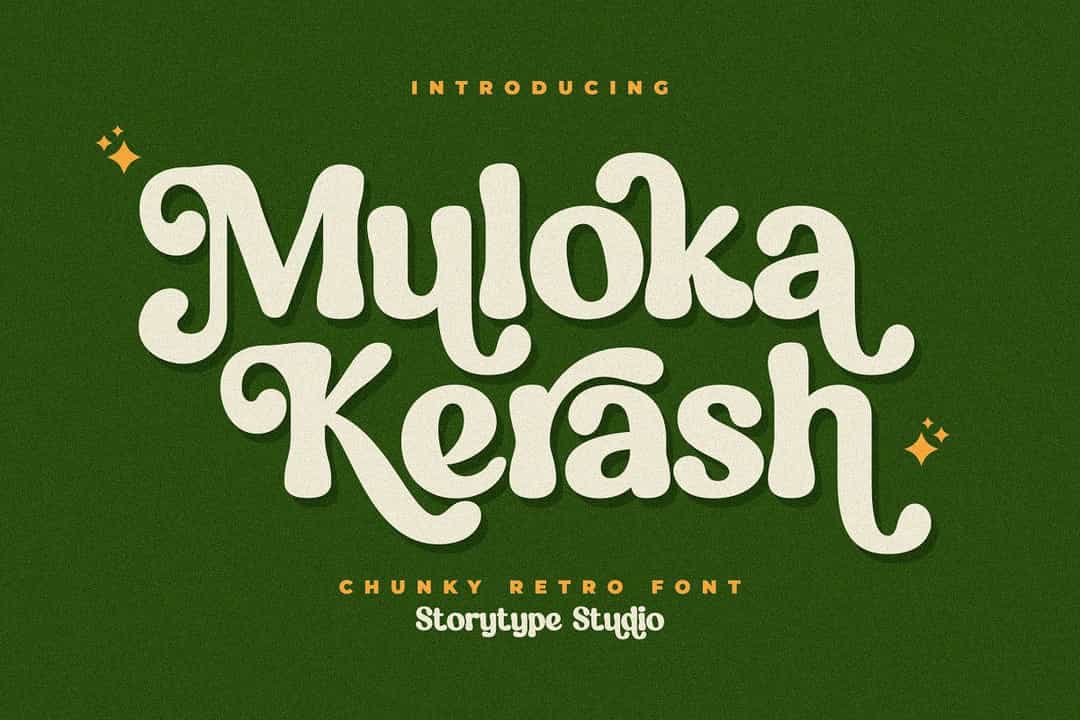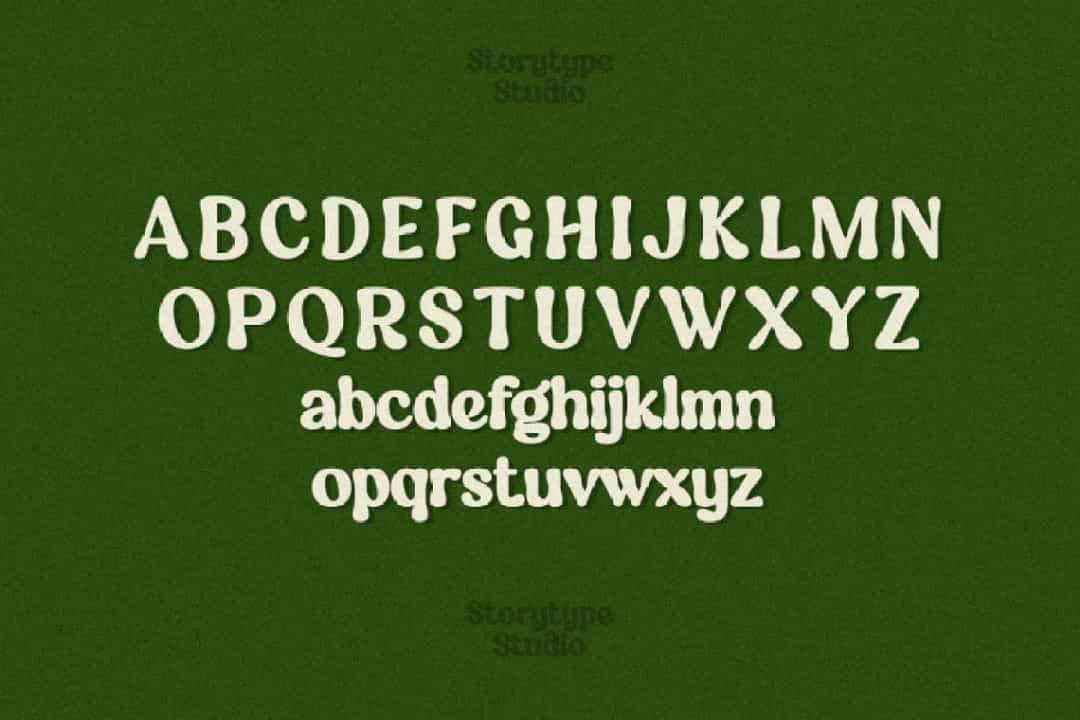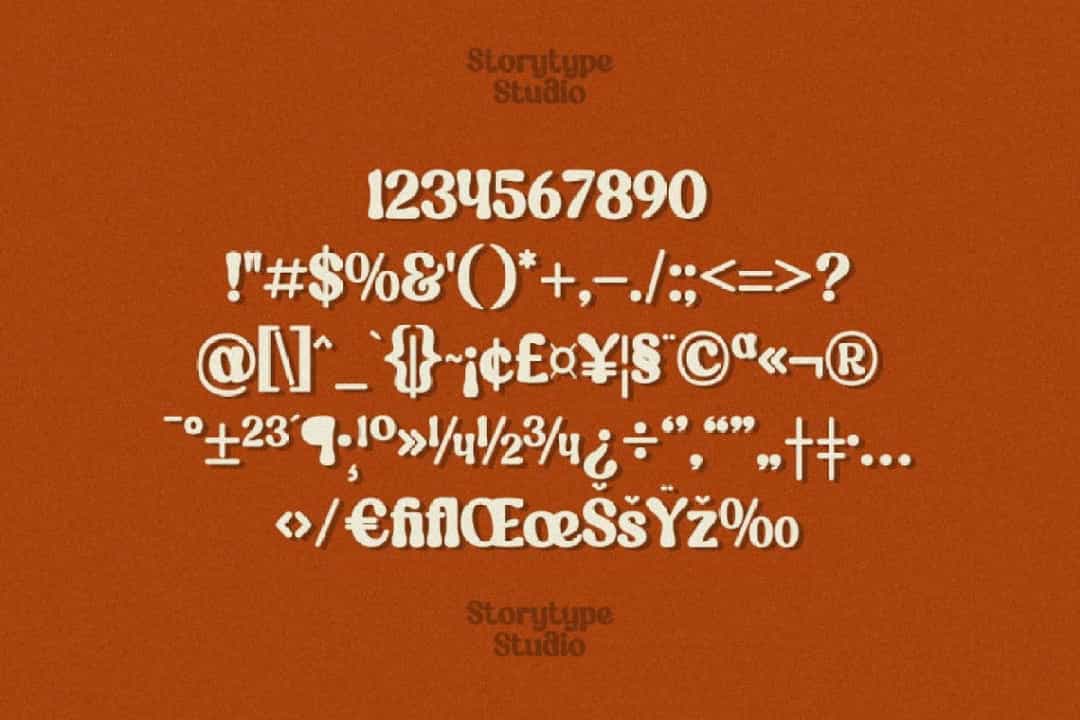
Muloka Kerash can be described as an enjoyable and stylish serif typeface with an appealing retro aesthetic, perfect for use across various designs. Give Muloka Kerash a try now in your designs and be amazed by what amazing results will result!